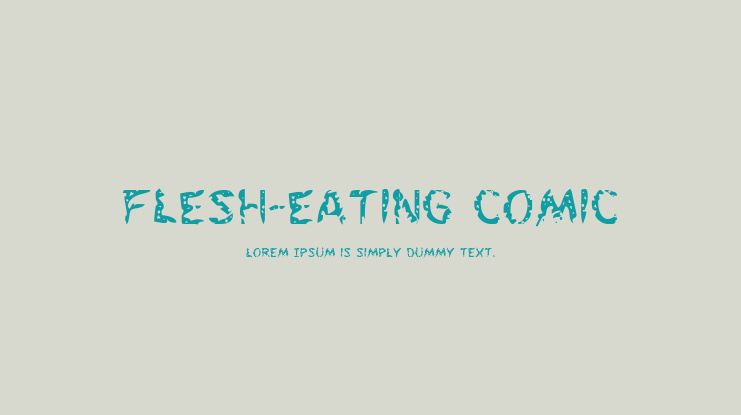
Flesh-Eating Comic Font Family
Daniel Zadorozny
Flesh Eating Comic is a comic book lettering font that's been infected by a zombie virus and is partially eaten away! Comes with a full character set and the Euro.